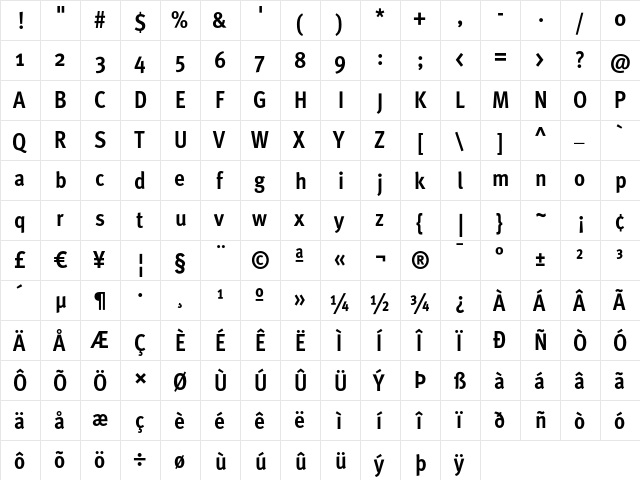
MetaCondBold Roman
Design Context for MetaCondBold Typeface
MetaCondBold is a composed and adaptable typeface that performs quietly and consistently across a wide range of design contexts. Its bold stroke weight gives it real presence on the page. Its narrow stance lets it pack a punch even in space-constrained designs.
Pro Tip: Use MetaCondBold in both headline and body roles to test its range before committing to a single application.